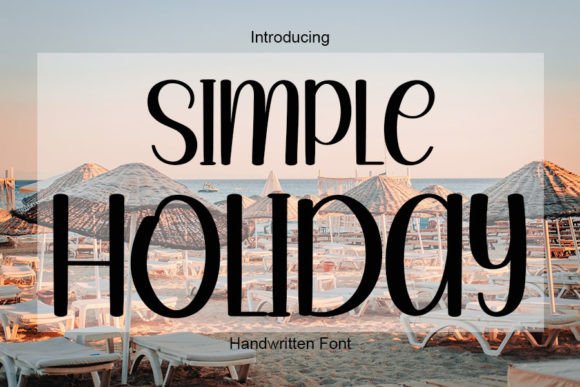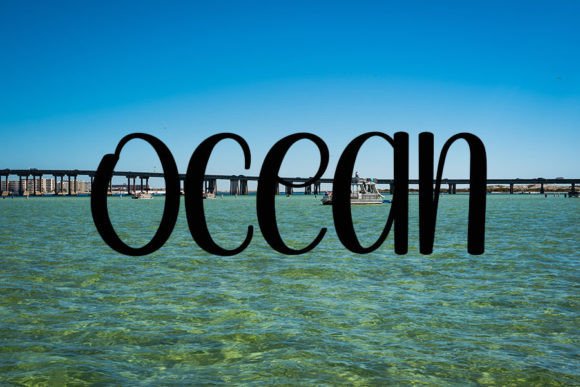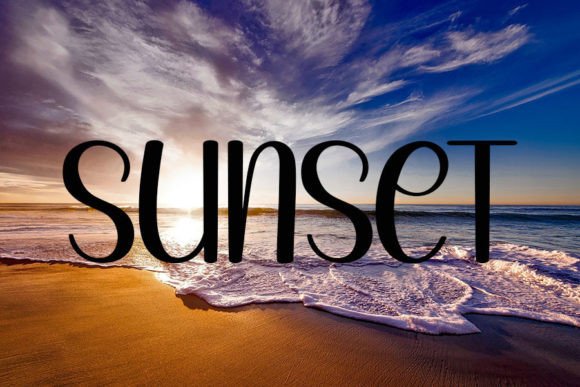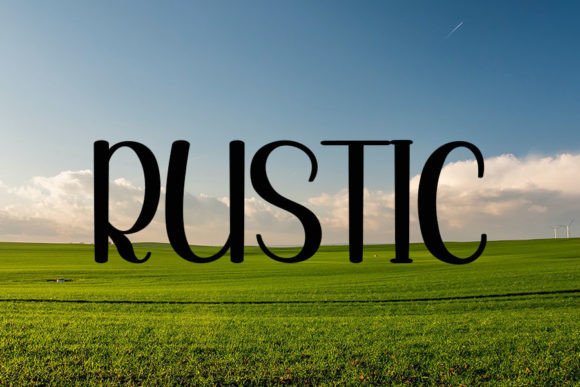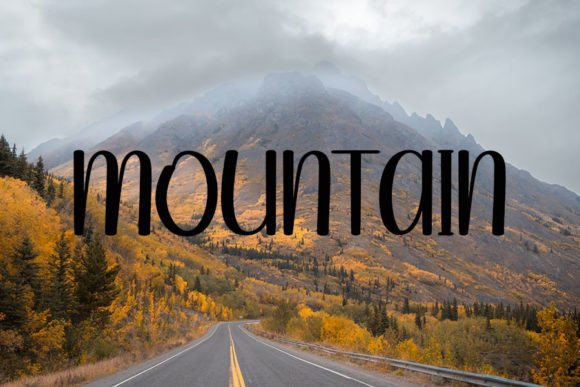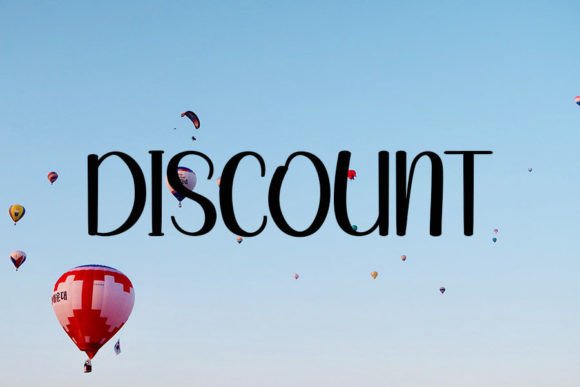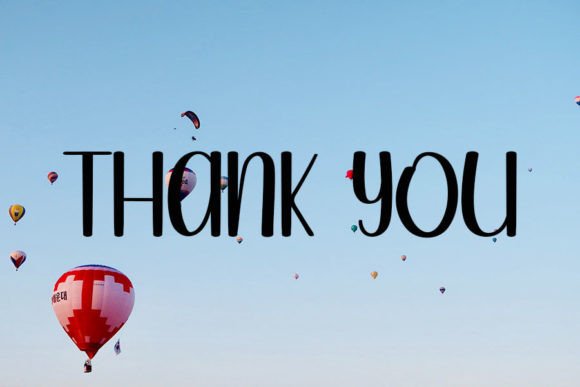
Simple Holiday Font
About Simple Holiday Font
Simple Holiday Font is a clean, graceful handwritten typeface that radiates elegance and simplicity. Designed with smooth lines and a balanced flow, this font brings a refined charm to any visual creation. Whether you’re working on personal designs or commercial projects, this font offers a timeless and professional appearance that remains fresh and stylish.
From branding to heartfelt messages, this elegant script adapts beautifully to your needs. Its handcrafted aesthetic reflects warmth and care, giving your words an intimate, thoughtful voice.
Where to Use Simple Holiday Font
Thanks to its neat and graceful strokes, Simple Holiday Font shines in a wide variety of design scenarios. You can use it to enhance:
• Wedding Invitations – Add a romantic and sophisticated touch
• Greeting Cards – Perfect for Christmas, birthdays, and other holidays
• Quotes & Wall Art – Highlight inspirational text with beautiful flow
• Branding & Packaging – Create refined logos or product labels
• Social Media Graphics – Craft elegant posts and headers for platforms like Instagram and Pinterest
Its smooth readability and clean composition make it suitable for both large and small text, ensuring that your message always stands out clearly.
• ✅ Elegant and Modern Style – Ideal for premium designs
• ✅ Versatile Use – Works for professional branding or fun DIY projects